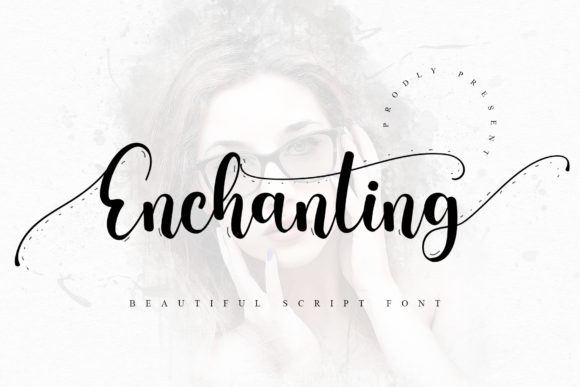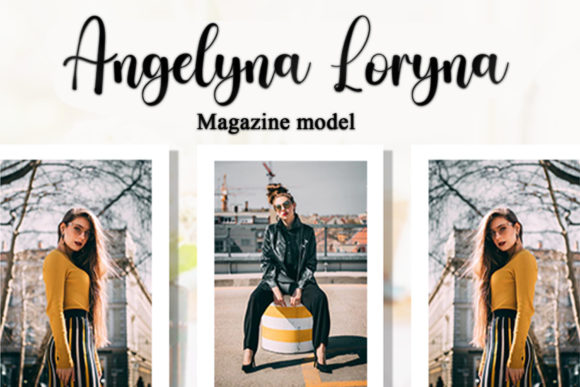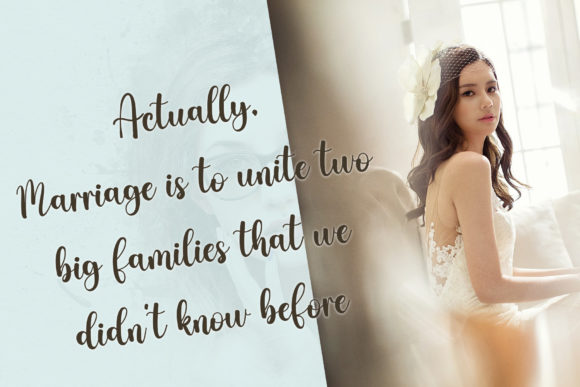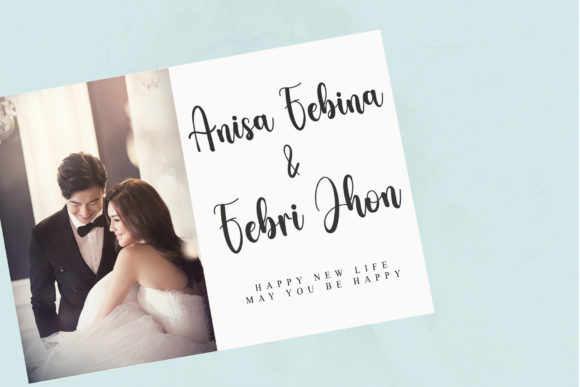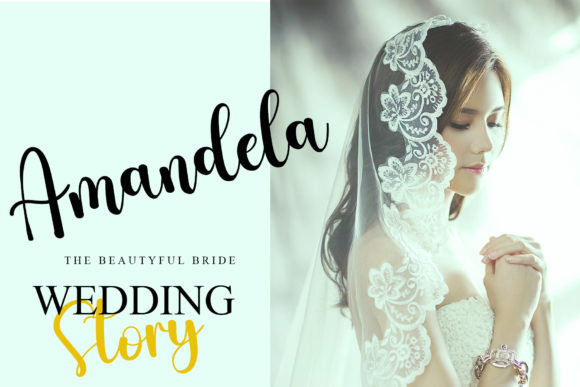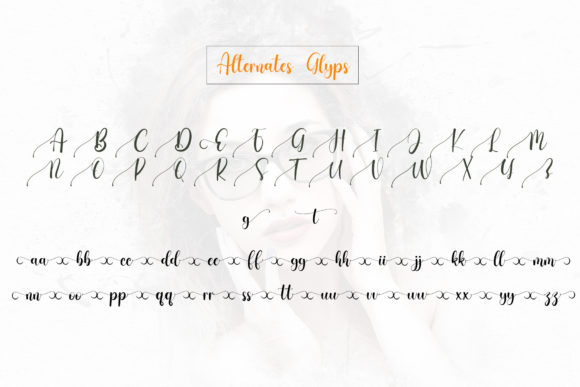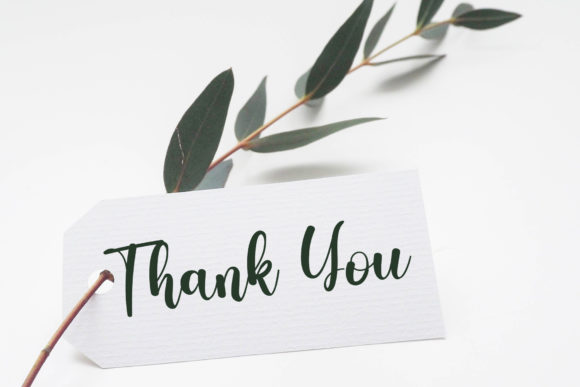
Enchanting Font
About Enchanting Font
“Enchanting” lives up to its name by embodying both charm and elegance in a font that is equally stunning. This handwritten typeface is exceptionally well-suited for a range of design applications, from wedding invitations and thank-you cards to quotes, greeting cards, logos, business cards, and any project that benefits from a touch of handcrafted sophistication. Notably, “Enchanting” is PUA encoded, ensuring effortless access to all its intricate glyphs and swashes.
The charm of “Enchanting” comes to life in its elegant strokes and carefully crafted design. The font’s handwritten touch adds a personal and romantic flair, making it an ideal choice for occasions that demand a touch of enchantment, such as weddings and other special events.
Wedding invitations become works of art with the addition of “Enchanting.” The font’s graceful curves and intricate details contribute to a romantic and timeless aesthetic, setting the tone for a truly enchanting celebration of love.
Thank-you cards, quotes, and greeting cards benefit from the expressive quality of “Enchanting.” The handwritten touch adds warmth and personality to your messages, creating a connection with the recipient. Whether you’re conveying gratitude, sharing inspiration, or sending well wishes, this font enhances the sentiment with its charming elegance.
Logos and business cards take on a distinctive and refined identity with the use of “Enchanting.” The font’s sophistication adds a touch of professionalism while maintaining a personalized and handcrafted feel. It becomes a signature element that sets your brand apart.
The versatility of “Enchanting” extends to various design projects where a handwritten touch is desired. Its PUA encoding ensures accessibility to a plethora of glyphs and swashes, providing creative freedom to customize and enhance your designs with ease. This feature is particularly valuable for designers seeking to add unique and decorative elements to their work.
In summary, “Enchanting” is a font that effortlessly combines charm and elegance. From wedding invitations to logos and various design projects, its handwritten touch adds a level of sophistication that resonates with both personal and professional aesthetics. The PUA encoding further enhances its versatility, making it a valuable tool for designers who appreciate the beauty of intricate glyphs and swashes in their creative endeavors. Let “Enchanting” be the font that transforms your designs into enchanting masterpieces.